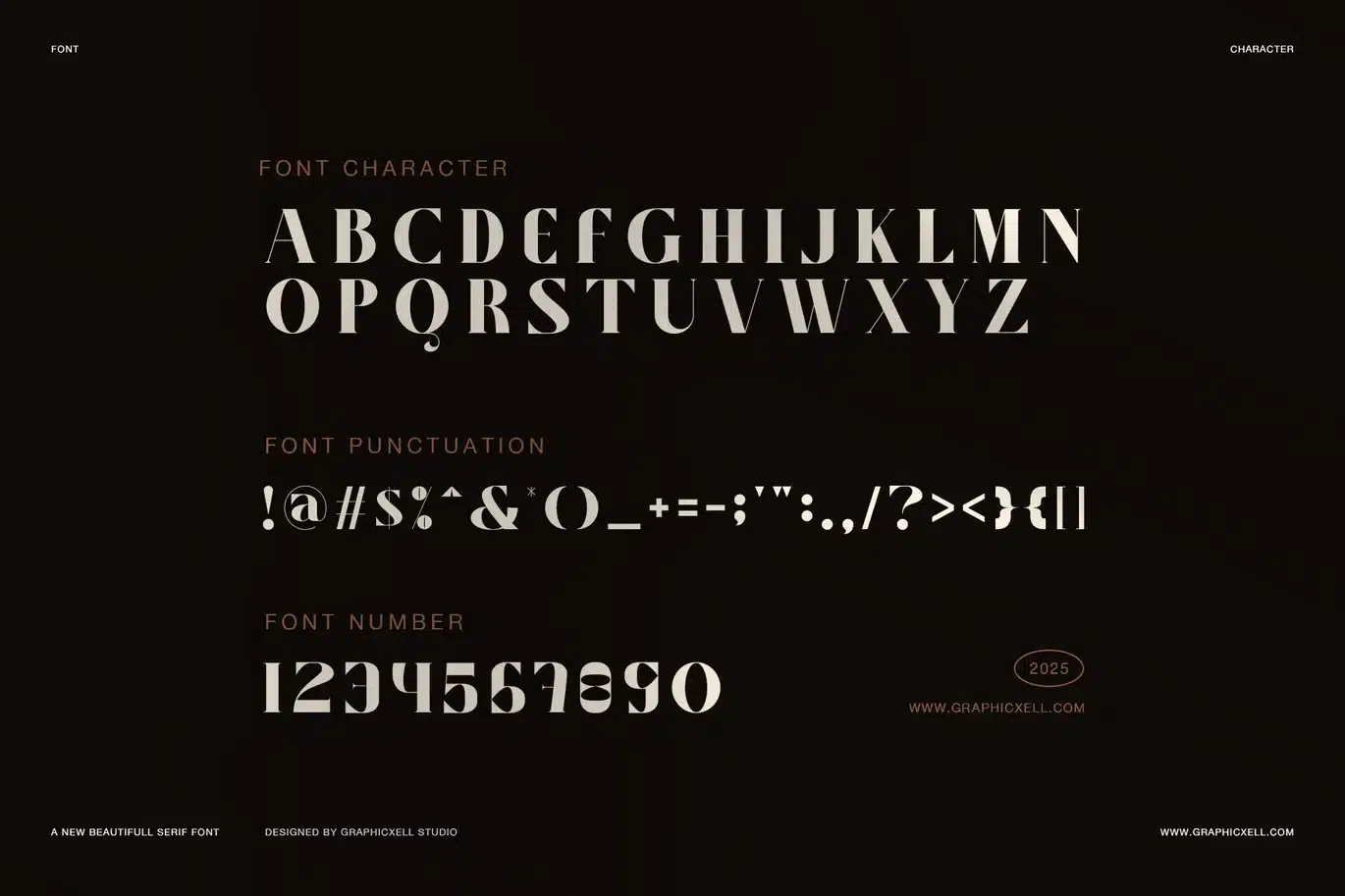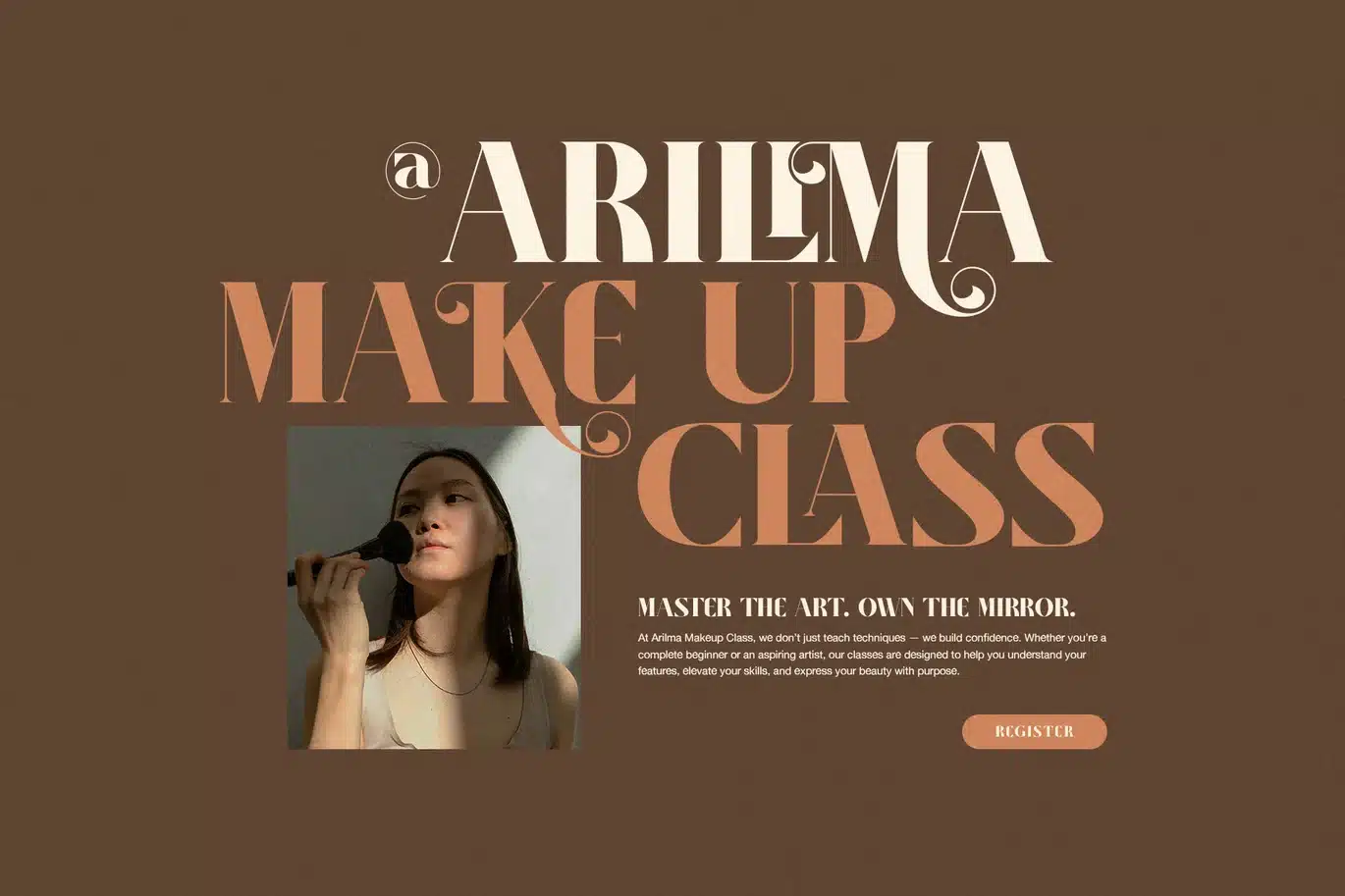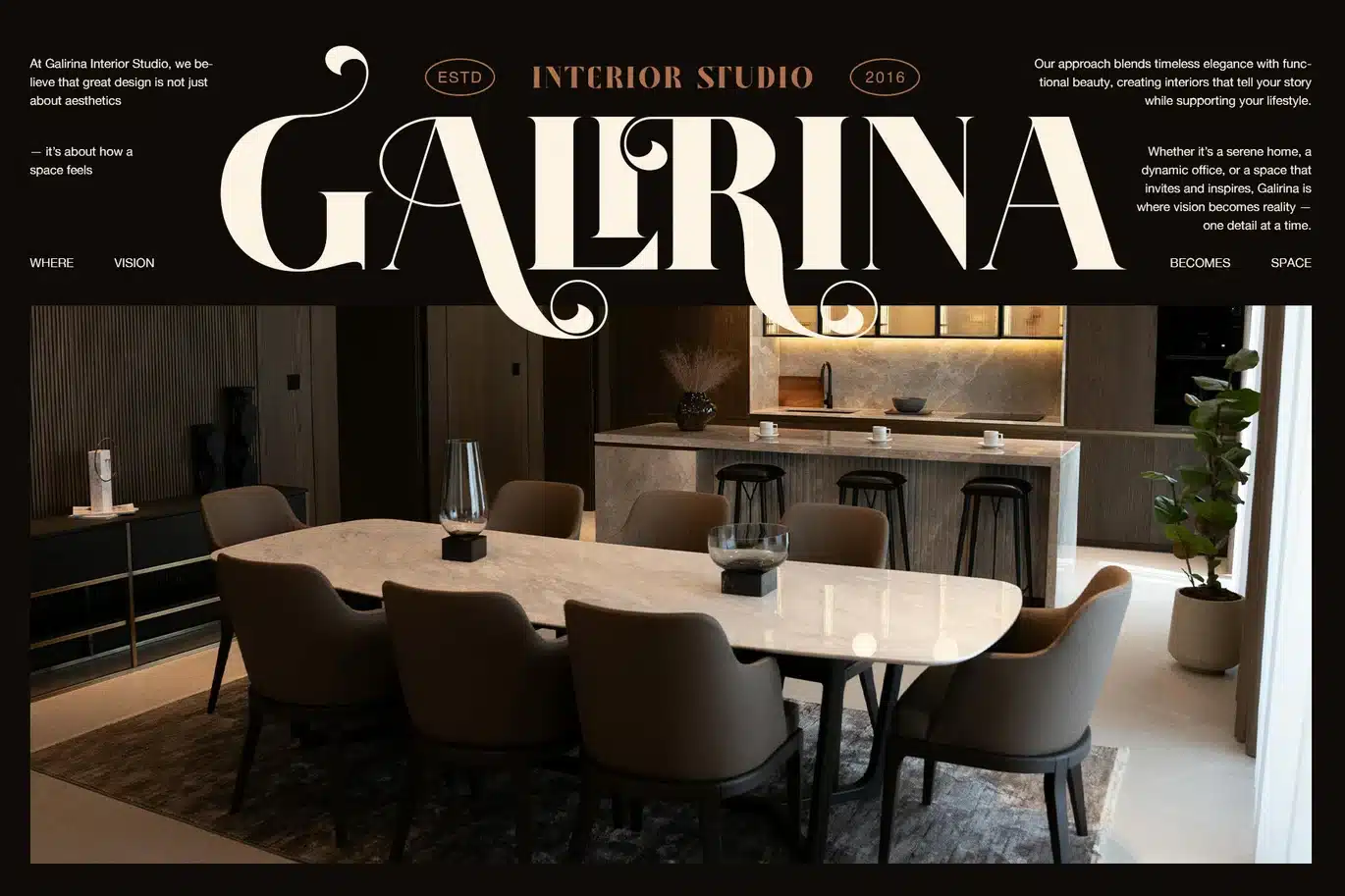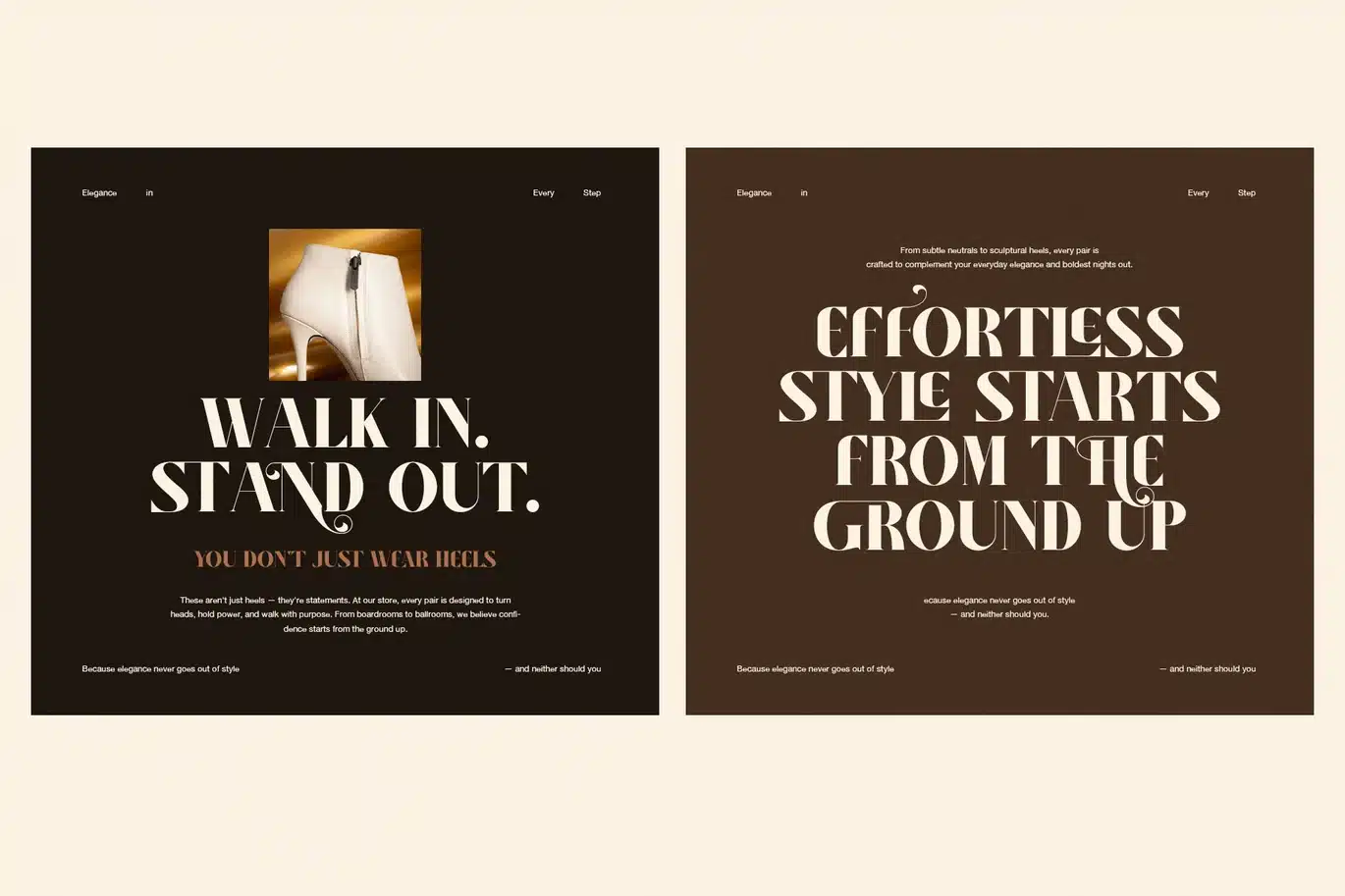
Belinca Display Serif Font
Belinca Display Serif Font offers timeless beauty and clear readability. First, this serif typeface features a classic design with fine details that help your text stand out. Many designers use it for headlines, logos, branding, and editorial layouts because it brings a stylish yet friendly feel to any project.
Moreover, Belinca blends vintage charm with modern clarity. For example, you can use it for wedding invitations, magazine covers, or luxury packaging to add a clean, professional look. The font works well for creative projects that need a serif font which is both decorative and practical.
Classic serif design with modern touches
Smooth curves and clear lines improve readability
Great for large headlines and smaller text too
Perfect for branding, magazines, headlines, and print
Supports many languages and includes punctuation
In addition, you can easily pair Belinca with sans-serif fonts to create neat, polished designs. It adapts well to digital and print formats, so it performs reliably on any platform. The fine details let your message stay clear, while adding a unique personality.
When you want to make a stylish and lasting impression, Belinca Display Serif Font is the right choice. It suits designers who like tradition but want a fresh, modern look. Therefore, enhance your projects with this lovely serif font and catch your audience’s eye with elegant, easy-to-read text.